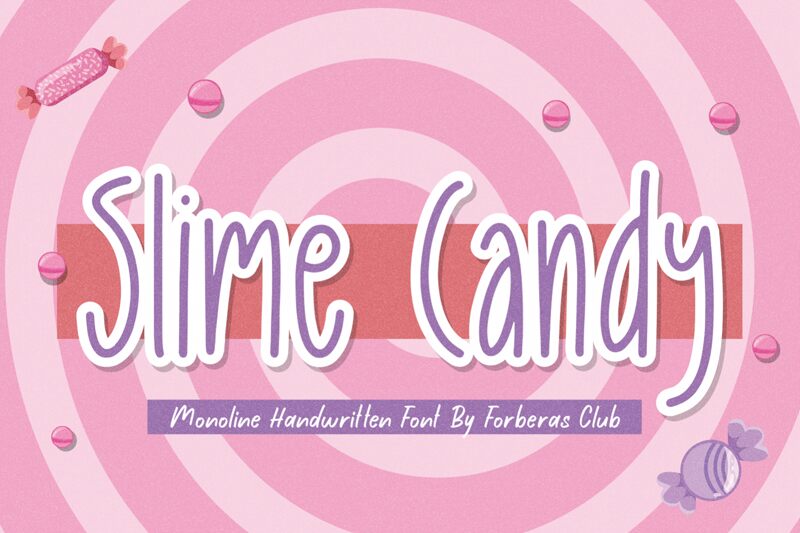
Slime Candy, a captivating handwritten font crafted by the talented designers at Forberas Club, exudes a whimsical and playful essence. This light, condensed typeface boasts a delightful, organic aesthetic, with each letter flowing seamlessly into the next, creating a sense of fluidity and movement. The playful strokes and slight variations in thickness add a charming, handcrafted touch, evoking a sense of warmth and approachability.
Slime Candy's versatility shines through, making it a versatile choice for a variety of design projects. From playful branding and packaging to inviting social media content and eye-catching event materials, this font's unique characteristics lend themselves beautifully to projects seeking a touch of whimsy and personality.